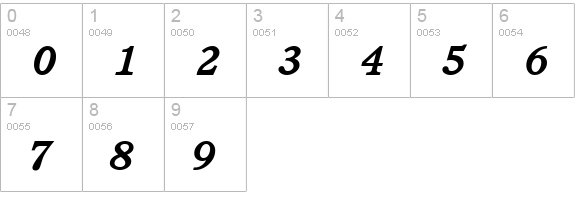
C851-Roman-BoldItalic Font Details
The C851-Roman-BoldItalic font exudes elegance and sophistication with its bold yet graceful italic style. Perfect for adding a touch of class to any design project, this font features strong, confident letterforms that make a statement. The unique blend of Roman influences and modern design elements creates a timeless look that is both classic and contemporary. Best of all, this stunning font is available for free download at FontsMarket.com. Whether you're working on a professional project or a personal creative endeavor, the C851-Roman-BoldItalic font is sure to elevate your work to the next level. Don't miss out on the opportunity to add this versatile font to your collection and unleash your creativity with its stylish and dynamic presence.